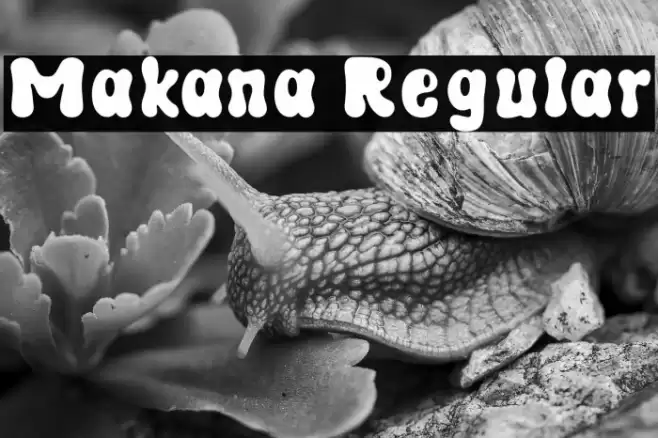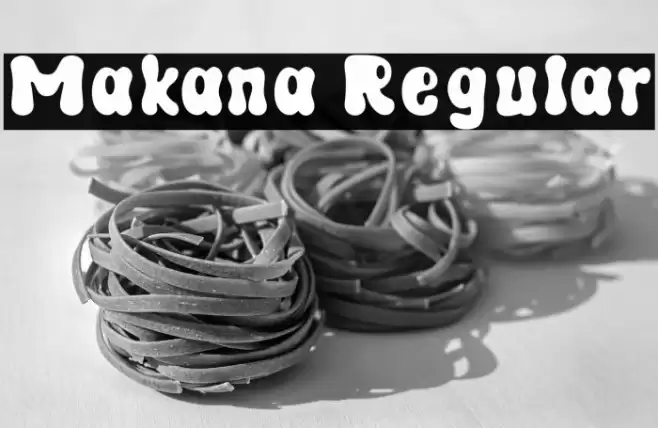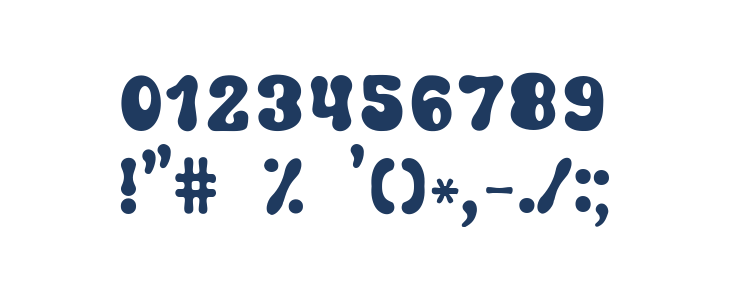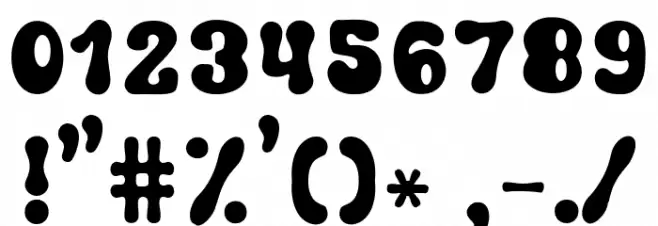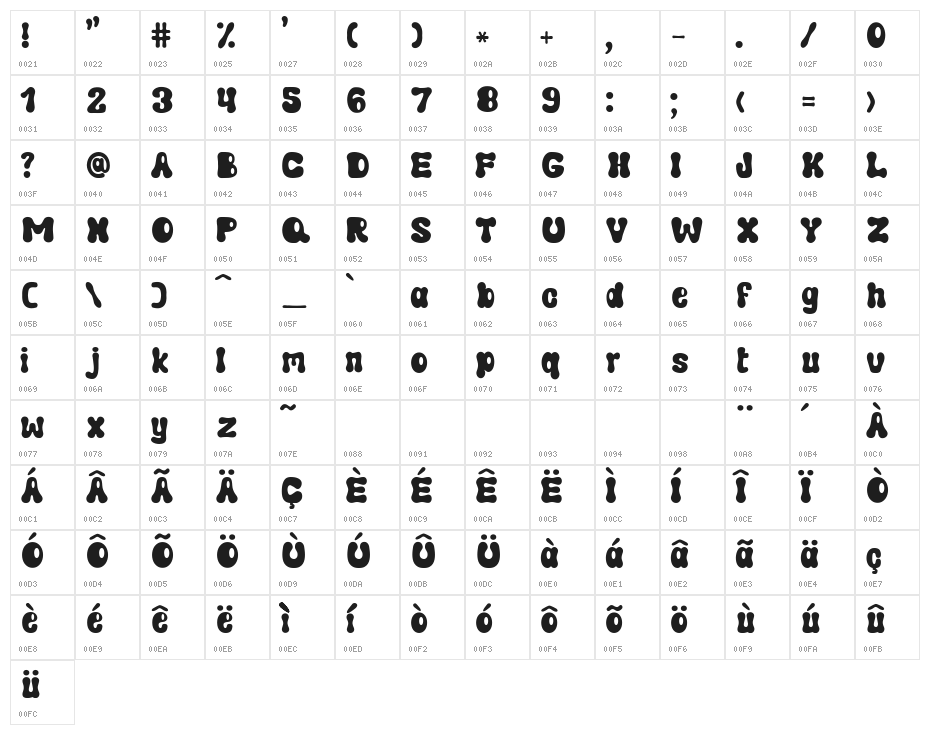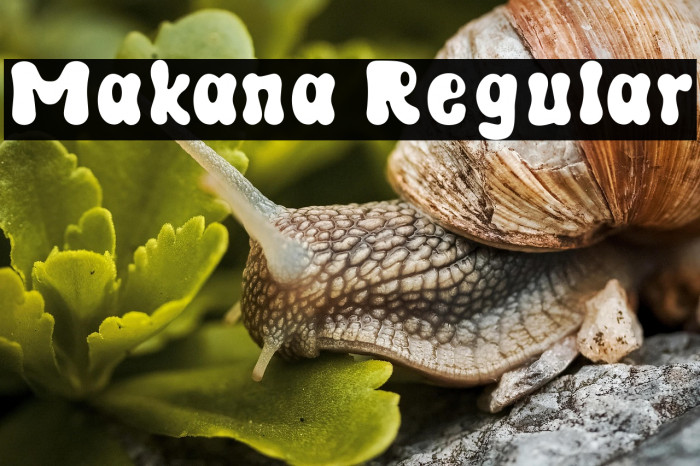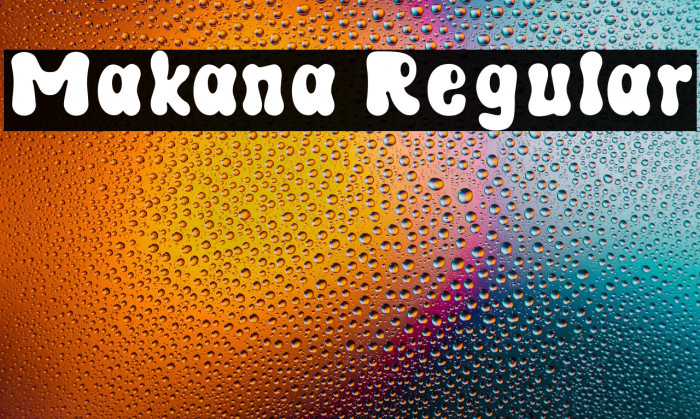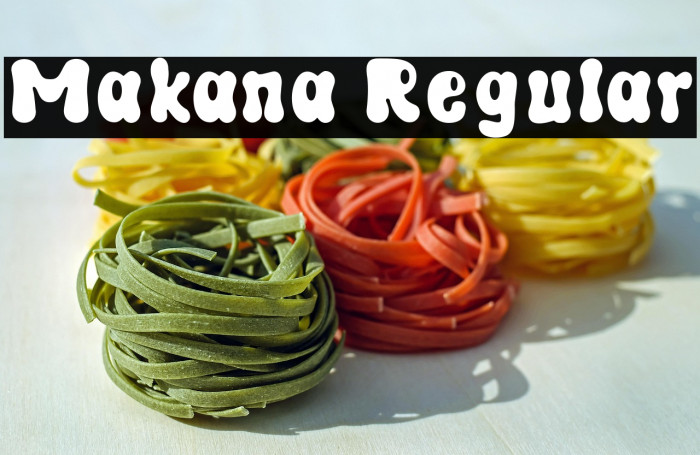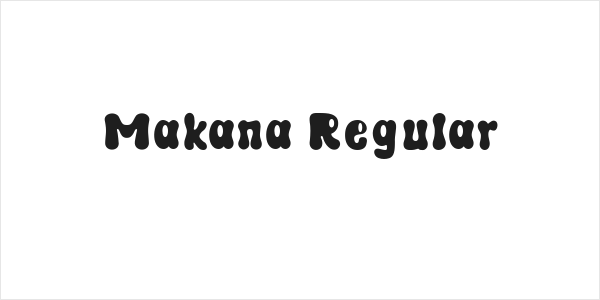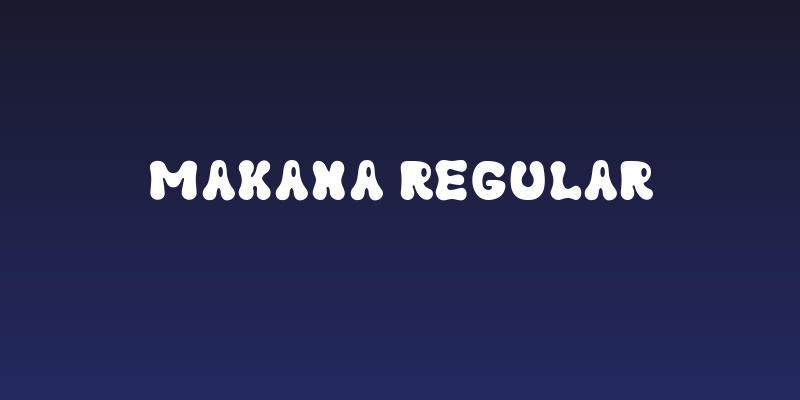
Makana Regular Font
Makana Regular Description
This font features a playful and bold design, characterized by its rounded and bubbly letterforms. The characters have a consistent thickness, giving them a uniform appearance that is both eye-catching and approachable. The style is reminiscent of retro or vintage aesthetics, making it suitable for projects that aim to convey a sense of fun and nostalgia. The numbers and special characters maintain the same playful quality, ensuring a cohesive look across all text elements. The overall design is highly decorative, making it ideal for creative and informal applications.
A playful, bold font with rounded, bubbly letterforms and a retro vibe from Uncategorized fonts.
- Proposed Projects: Ideal for children's books, playful branding, retro-themed posters, and creative invitations.
- Overall Style: Vintage